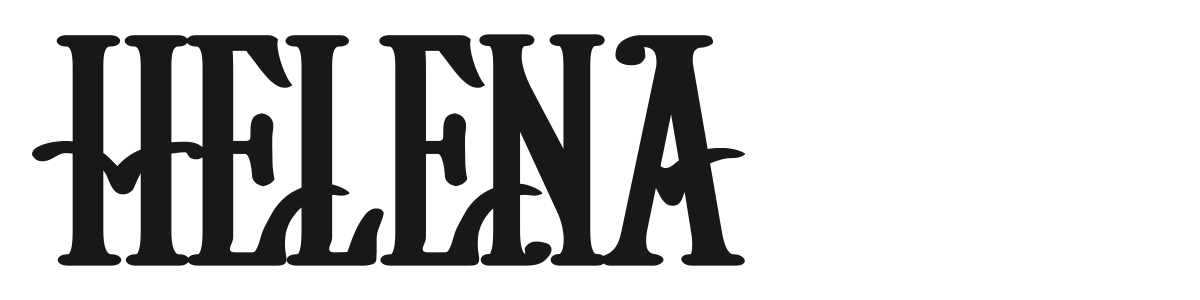
Helena
Helena is a condensed, uppercase display face by Paul Lloyd with ornamental details that give its bold, narrow letterforms a distinctive decorative edge. The heavy weight and tight proportions keep it punchy for headlines and posters, while the ornamental touches prevent it from reading as just another condensed sans. Best reserved for display use where its personality can come through at larger sizes.